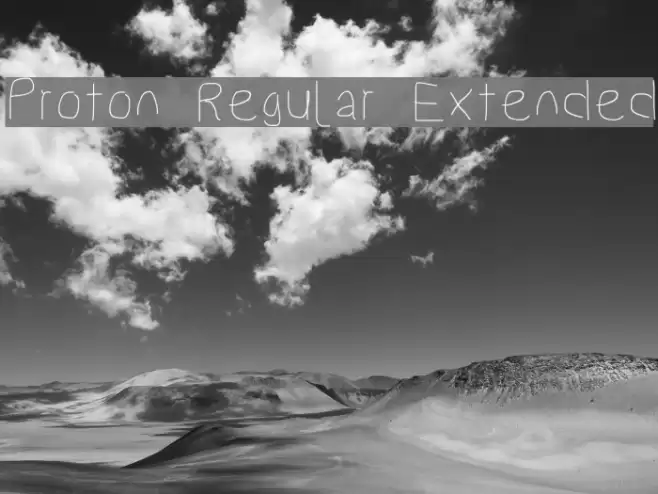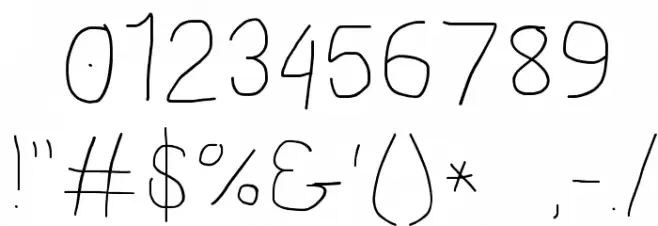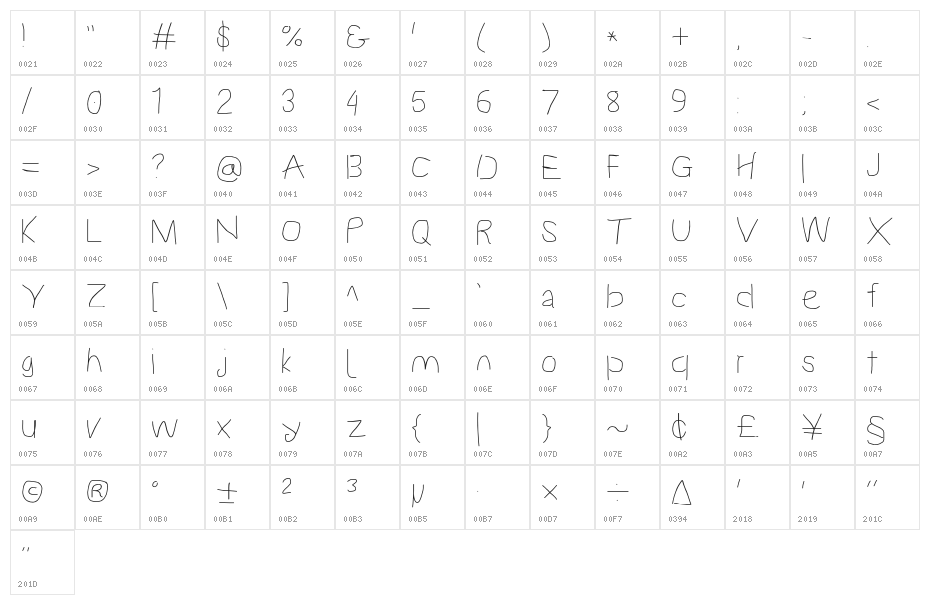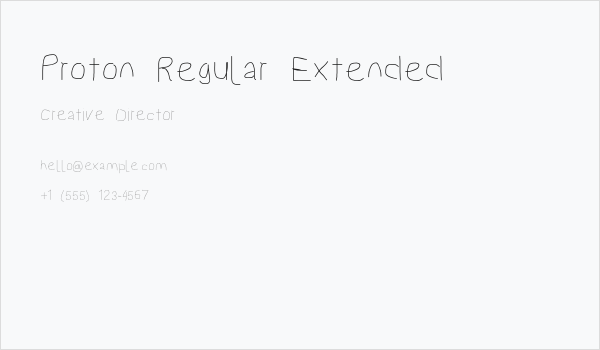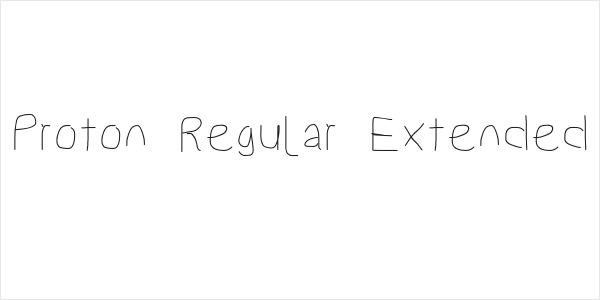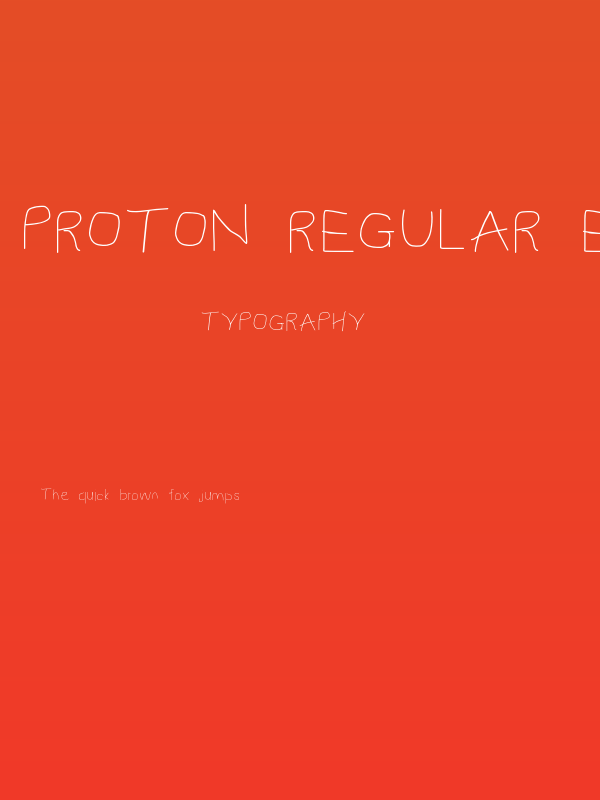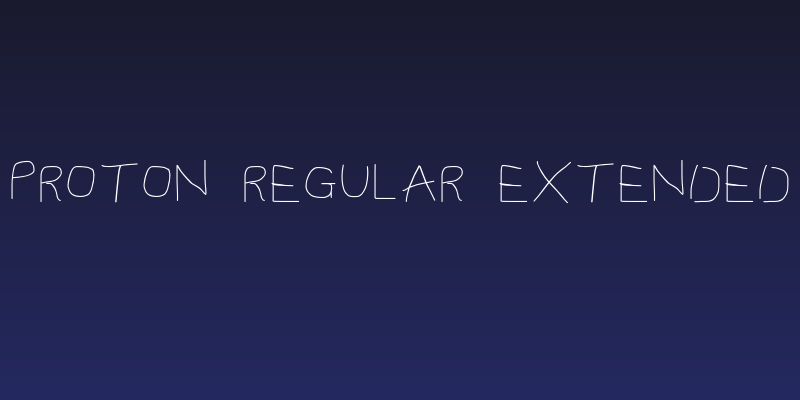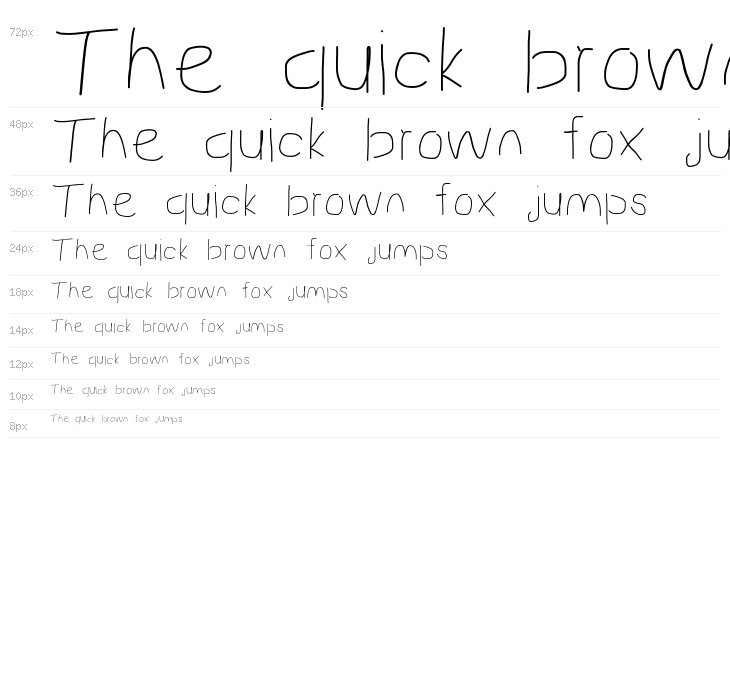
Proton Regular Extended Font
Proton Regular Extended Description
This font features a unique, hand-drawn style with a playful and informal appearance. The characters are thin and elongated, giving them an airy and light feel. The strokes are consistent in thickness, contributing to a clean and modern look. The uppercase letters are slightly taller than the lowercase, maintaining a uniform height across the alphabet. The numerals and special characters follow the same design principles, ensuring coherence throughout. This font's extended width allows for a spacious and open presentation, making it ideal for creative and casual projects.
A playful, hand-drawn font with thin, elongated characters and a modern feel from Uncategorized fonts.
- Proposed Projects: Ideal for greeting cards, children's books, casual branding, and creative posters.
- Width: Expanded
- Character Spacing: Wide
- Use Case: Headlines, Logos, Casual Text